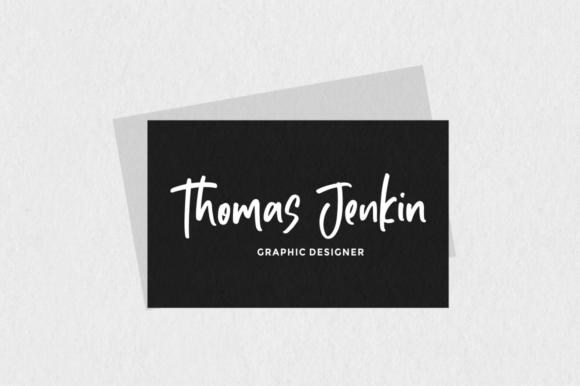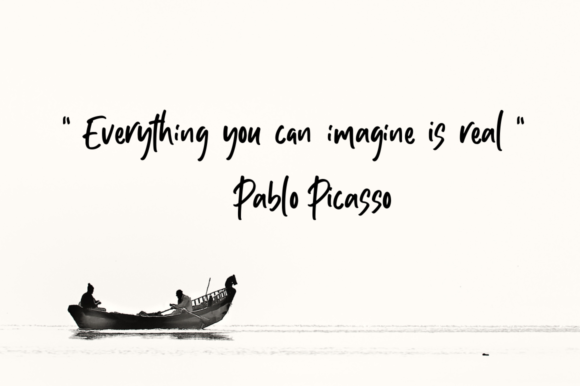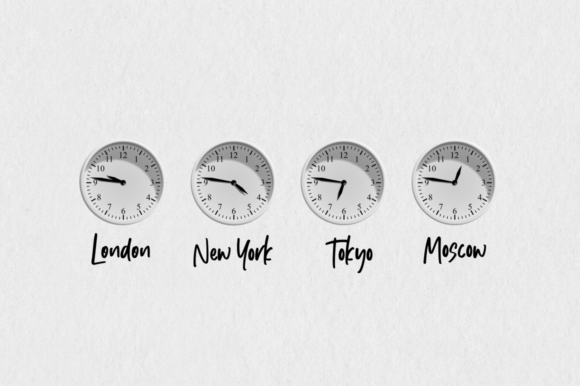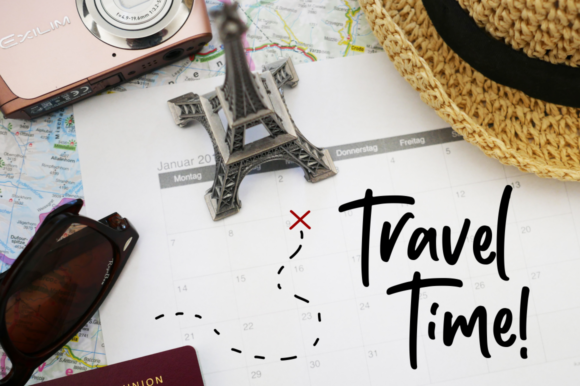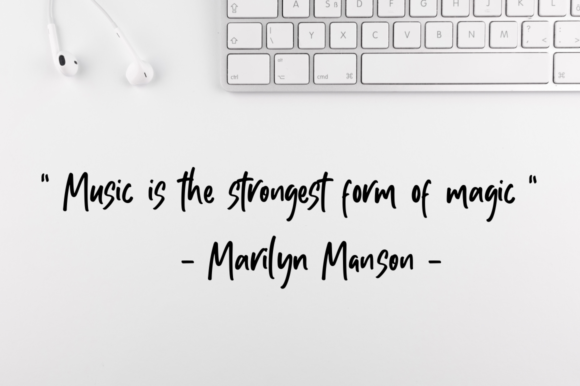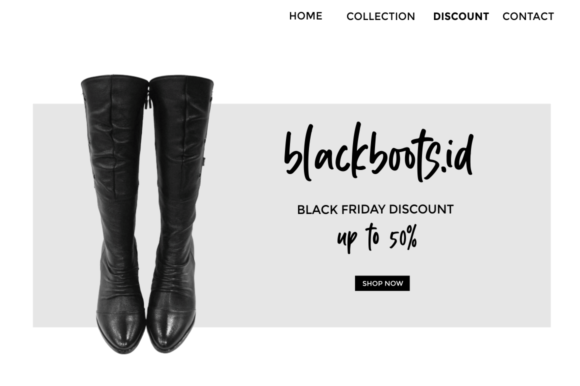
Introducing Big Points Font: The Ultimate Handwritten Font for Creative Designs
Are you tired of using the same old boring fonts in your designs? Look no further! Big Points Font is here to revolutionize your creative projects with its fun and quirky handwritten style. This unique font is perfect for designers and crafters who want to add a personal touch to their work and make it stand out from the crowd.
The Unique Charm of Big Points Font
Big Points Font is a beautifully crafted handwritten font that boasts a distinctive and charming character. Every letter has a unique and beautiful touch, which sets it apart from other fonts. The font’s quirky and playful style is perfect for adding a touch of personality to your designs, making it ideal for creative projects that require a bit of whimsy and flair.
Big Points Font is a versatile font that can be used in a wide range of design projects, from digital graphics to print materials. Whether you’re a designer, crafter, or DIY enthusiast, this font is perfect for adding a personal touch to your work. With Big Points Font, you can create stunning designs that showcase your creativity and style.
Key Features of Big Points Font
- Unique and Quirky Style: Big Points Font has a distinctive handwritten style that sets it apart from other fonts.
- Beautifully Crafted Letters: Every letter has a unique and beautiful touch, making it perfect for adding a personal touch to your designs.
- Versatile and Flexible: Big Points Font can be used in a wide range of design projects, from digital graphics to print materials.
How to Use Big Points Font in Your Designs
- Digital Graphics: Use Big Points Font to create stunning digital graphics, such as social media posts, blog headers, and email newsletters.
- Print Materials: Use Big Points Font to create beautiful print materials, such as brochures, flyers, and business cards.
- Crafting Projects: Use Big Points Font to add a personal touch to your crafting projects, such as handmade cards, scrapbook pages, and DIY decorations.
Tips and Tricks for Getting the Most Out of Big Points Font
Here are some tips and tricks for getting the most out of Big Points Font:
- Experiment with Different Colors: Big Points Font looks great in a variety of colors, so don’t be afraid to experiment and find the perfect color for your design.
- Mix and Match with Other Fonts: Big Points Font pairs well with other fonts, so try mixing and matching it with other fonts to create a unique and interesting design.
- Use it for Headings and Titles: Big Points Font is perfect for headings and titles, so use it to add a touch of personality to your design.
Big Points Font is a fun and quirky handwritten font that’s perfect for designers and crafters who want to add a personal touch to their work. With its unique and beautiful touch, Big Points Font is sure to make your designs stand out from the crowd. So why wait? Download Big Points Font today and start creating stunning designs that showcase your creativity and style!